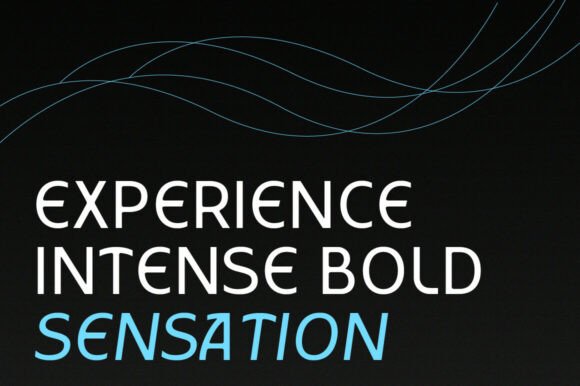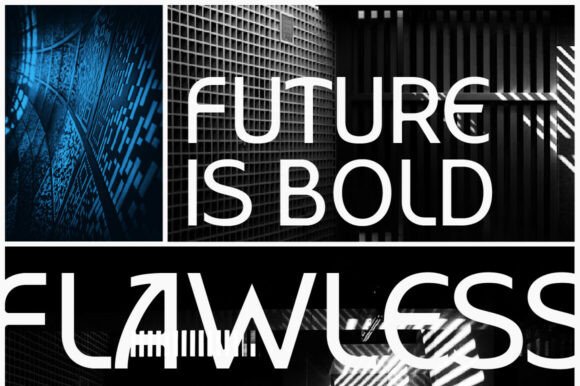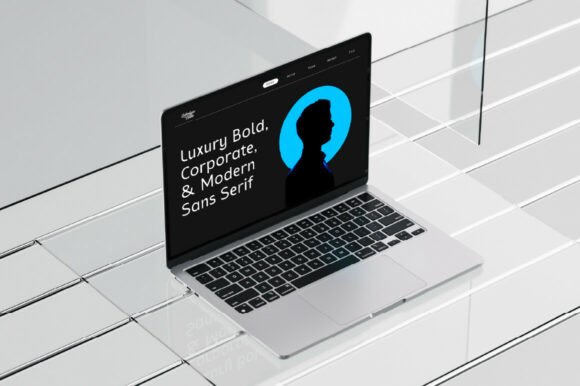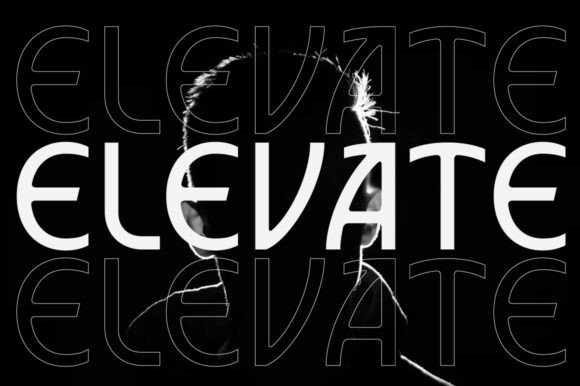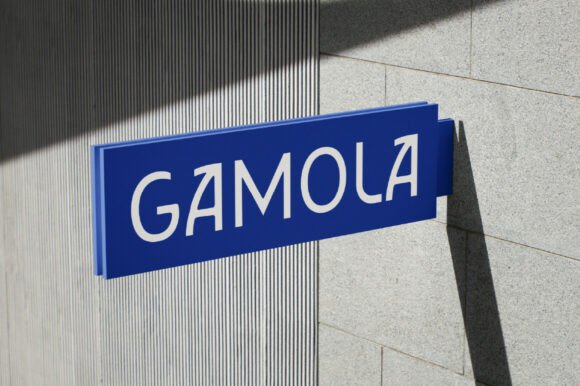
Gamola Font: Elevate Your Brand with a High-Impact Typeface
In the world of branding and corporate identity, typography plays a crucial role in conveying a message and establishing a visual presence. For designers and crafters looking for a font that exudes confidence, sophistication, and modern elegance, Gamola Font is an excellent choice. This high-impact typeface is specifically designed for premium branding and bold corporate identity, making it an ideal solution for logos, branding kits, tech companies, business presentations, and editorial headlines.
Clean Geometric Structure and Refined Proportions
Gamola Font boasts a clean geometric structure and refined proportions, which provide a strong yet sophisticated feel. The font’s design is characterized by its bold and confident style, making it stand out in any design context. The clean lines and geometric shapes used in Gamola create a sense of modernity and elegance, perfect for brands looking to establish a professional and sleek visual identity.
Gamola Font Example
Versatility and Flexibility
Gamola Font is available in two styles: Upright and Oblique, offering flexibility for different design moods and layouts. This versatility allows designers to use the font in a variety of contexts, from formal and professional to creative and innovative. The Upright style is perfect for headlines, titles, and emphasis, while the Oblique style adds a touch of dynamism and movement to the design.
Comprehensive Character Set
Gamola Font features a comprehensive character set, including full uppercase and lowercase letters, numbers, punctuation, and multilingual support with accented characters. This extensive character set ensures that designers can use the font for a wide range of projects, from English-language branding to multilingual communications.
Designed for Professional Use
Gamola Font is designed specifically for professional use, making it an excellent choice for designers and crafters looking for a high-quality typeface. The font’s sleek and modern sans-serif design ensures that it will elevate any brand presence, from tech companies to business presentations and editorial headlines.
Key Features of Gamola Font
• High-impact typeface: Designed for premium branding and bold corporate identity
• Clean geometric structure: Provides a strong yet sophisticated feel
• Refined proportions: Ensures a modern and elegant appearance
• Available in two styles: Upright and Oblique for flexibility
• Comprehensive character set: Includes full uppercase and lowercase letters, numbers, punctuation, and multilingual support
• Designed for professional use: Perfect for logos, branding kits, tech companies, business presentations, and editorial headlines
In conclusion, Gamola Font is a high-quality typeface that offers a unique combination of style, sophistication, and versatility. Its clean geometric structure, refined proportions, and comprehensive character set make it an excellent choice for designers and crafters looking to elevate their brand presence. Whether you’re working on a logo, branding kit, or business presentation, Gamola Font is sure to make a lasting impression.